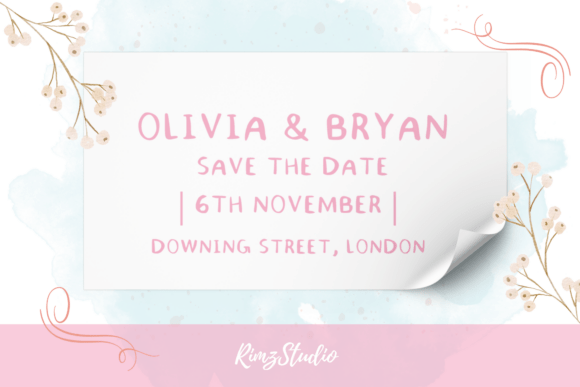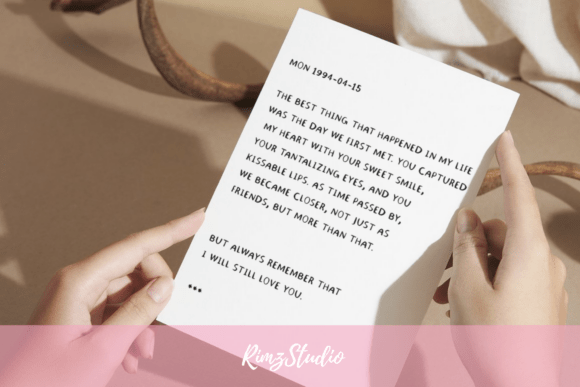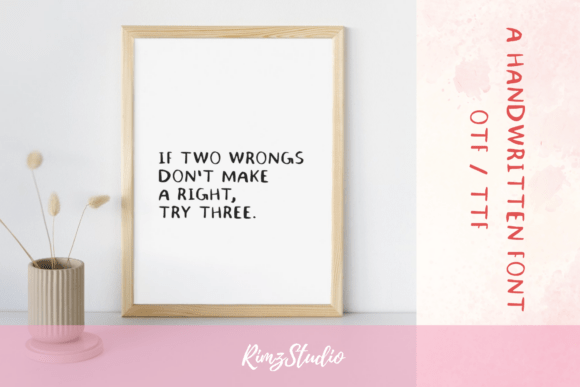
Introduction to Snack Time Font
Do you remember the excitement of receiving a passed note in class, or the joy of snuggling up with a favorite childhood book? Those moments evoke a sense of warmth and connection that can be difficult to replicate with digital design. That’s where the Snack Time Font comes in – a beautiful, handwritten font that feels like a warm hug on paper.
Crafted with soft, uneven strokes that mimic a felt-tip marker, the Snack Time Font captures the delightful imperfection of real handwriting. Its natural, all-caps flow is clear, friendly, and incredibly versatile, making it a valuable resource for designers looking to add a high-quality, personal touch to their creative projects.
Whether you’re a seasoned designer or just starting out, the Snack Time Font is a must-have for anyone looking to elevate their branding, product design, or publishing work. With its transparent background and free download option, you can easily incorporate this design resource into your next project and watch your designs come to life with a dash of genuine, cozy personality.
Key Features of Snack Time Font
- High-quality design resource ideal for creative projects, such as food blogs, recipe websites, and social media platforms.
- Unique, playful design featuring a transparent background, making it easy to overlay on images or videos.
- Perfect for adding a fun, whimsical touch to your design projects, including restaurant menus, food packaging, and advertising materials.
- Easy to customize and manipulate, allowing designers to create unique variations and styles to suit their creative vision.
Honest Review: Snack Time Font
I recently had the chance to work with the Snack Time Font and I must say it’s a solid addition to any design resource. This font is perfect for creative projects that require a playful touch.
- High-quality design that’s visually appealing
- Wide range of characters, including symbols and glyphs
- Transparent background, making it easy to customize
One of the standout features of the Snack Time Font is its versatility. It’s perfect for both digital and print projects, and it’s easy to use in a variety of design applications.
- May not be suitable for formal or professional projects
- No bold or italic font styles available
Overall, I’m impressed with the Snack Time Font. It’s a free download that’s perfect for designers looking to add some personality to their work. With its transparent background and wide range of characters, it’s a great resource to have in your toolkit.
Just keep in mind its limitations, and it’s perfect for creative projects that require a fun and playful touch.
Snack Time Font
Snack Time Font is a high-quality, versatile font designed for creative projects. It offers a unique, playful aesthetic perfect for a variety of applications.
Getting the Most Out of Snack Time Font
To get the most out of Snack Time Font, consider using it on a transparent background to create a clean, modern look.
Snack Time Font is ideal for use in creative projects such as social media graphics, posters, and flyers. Its playful aesthetic makes it perfect for food and beverage brands, entertainment companies, and youth-focused organizations.
Alternatives to Snack Time Font
When to use: Comic Sans is ideal for blog posts, social media graphics, and children’s educational materials. It’s not recommended for formal or professional projects.